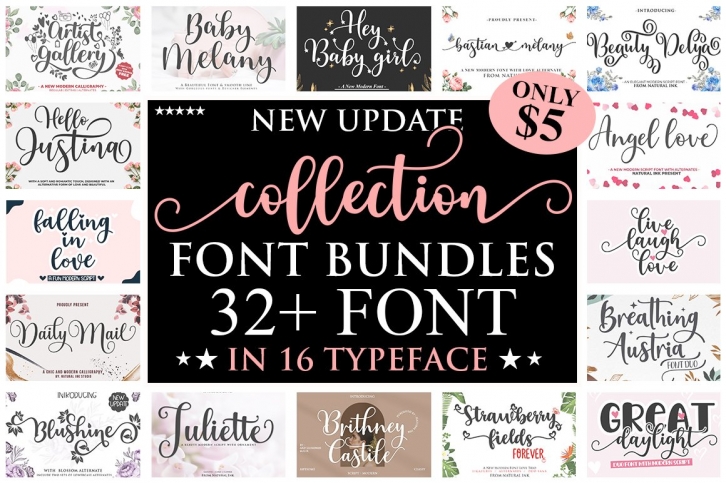
All New Collection Bundles is a beautiful font that was designed by Natural Ink. It's a great choice for designers and creatives who need such a font. It was released on April 30, 2022 and the file size is 15.53 MB. All New Collection Bundles may give a more youthful, expressive and casual look to your project. It is a very beautiful, refined, elegant, and high-quality font.